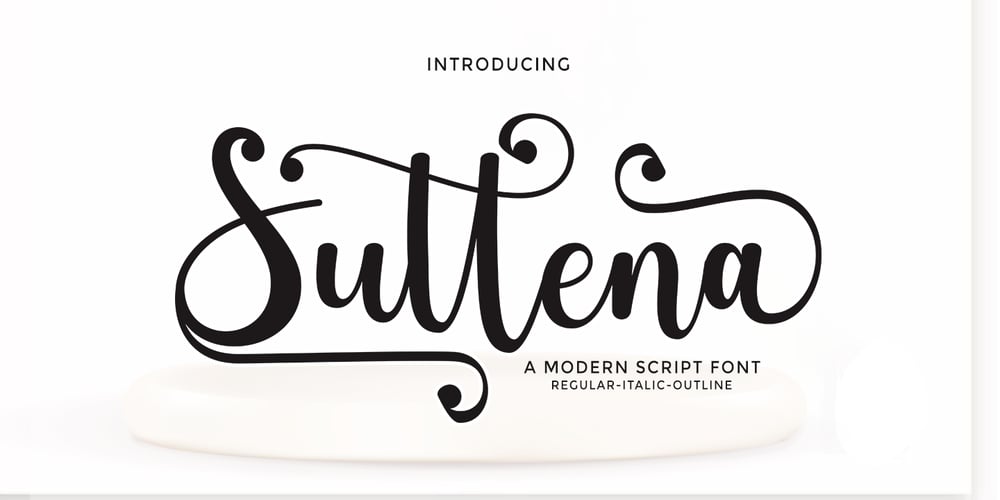
Suttena Script
Suttena Script font
Suttena Script Font Family was designed by Rizki Andika and published by Letterfreshstudio. Suttena Script contains 4 styles and family package options. Introduce !Suttena Script script is a modern script with hand lettering, decorative characters and dancing baselines! very suitable for use Such as blog headers, branding, t-shirts, weddings, social media, product design, stationery, advertising, clothing, book covers, business cards, greeting cards, branding, merchandise, invitations and handmade quotes and many more.Features : Ligatures Stylistic sets Basic Latin A-Z and a-z Numbers International Symbols included Punctuation Ligature Thank You.